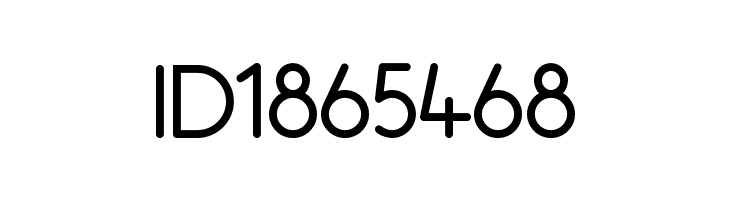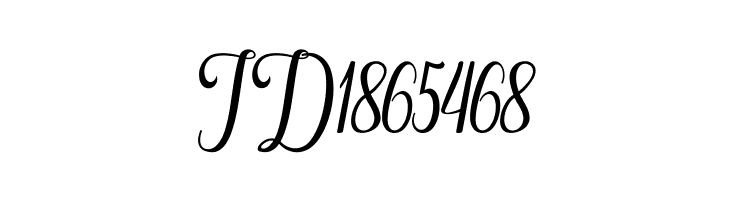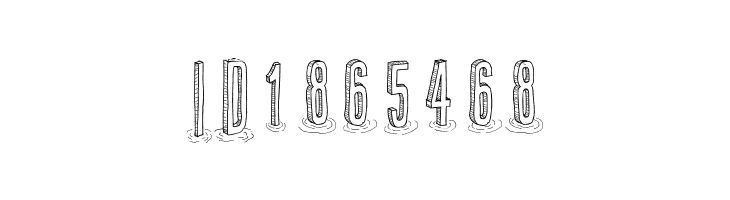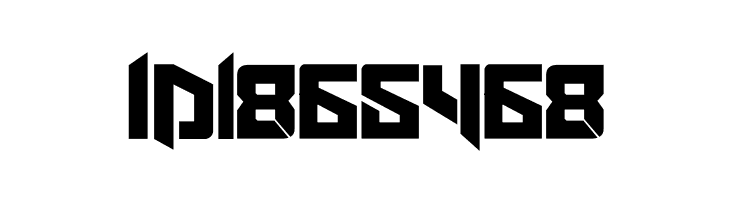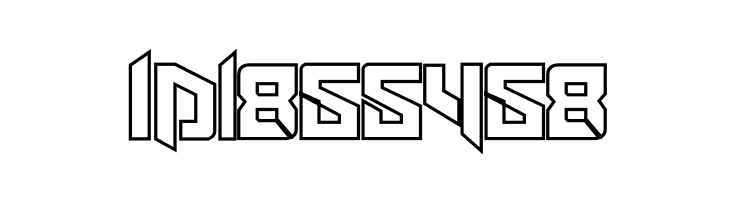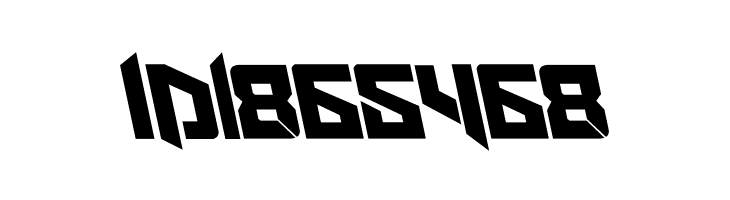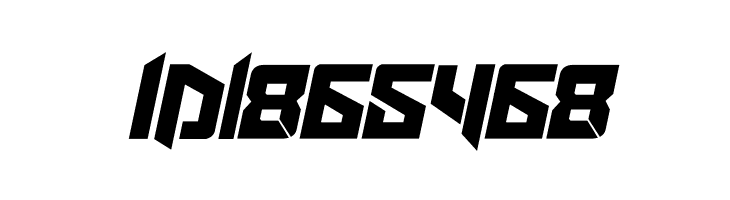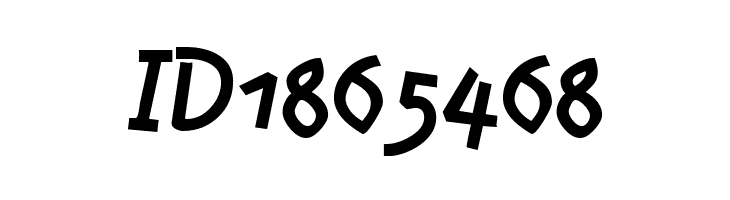
A bold, angular, and italicized font with a futuristic style.
A bold, angular font with a futuristic and dynamic design.
A bold, geometric outline font with a futuristic and edgy style.
A bold, angular font with a futuristic and geometric design.
An elegant, flowing script font with graceful curves and calligraphic flair.
A decorative, hand-drawn font with a 3D shadow effect and wavy baseline.
An elegant and flowing script font with classic, cursive characteristics.
A modern, rounded sans-serif font with a clean and approachable design.
A modern, rounded sans-serif font with clean lines and consistent spacing.